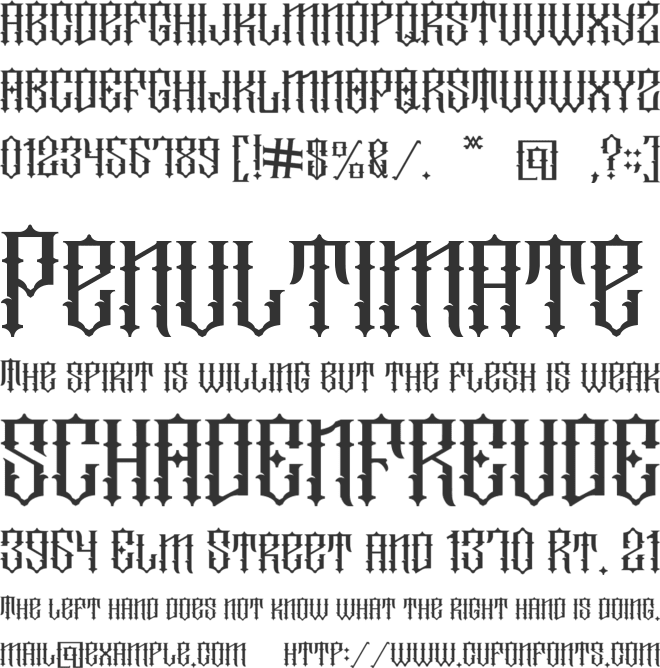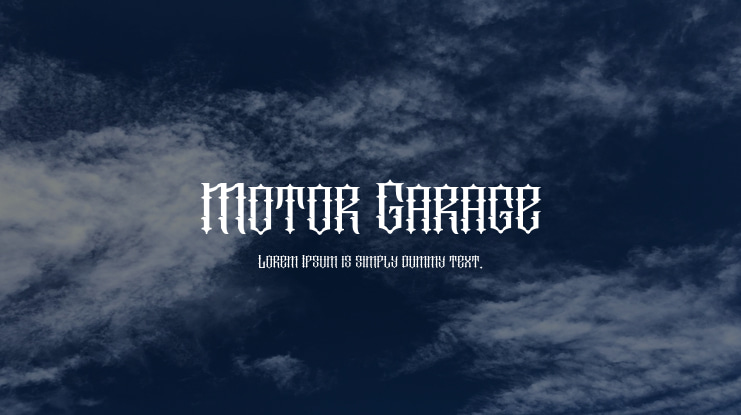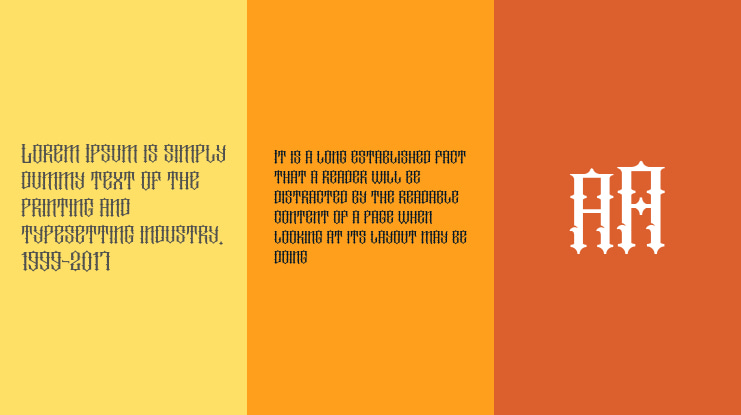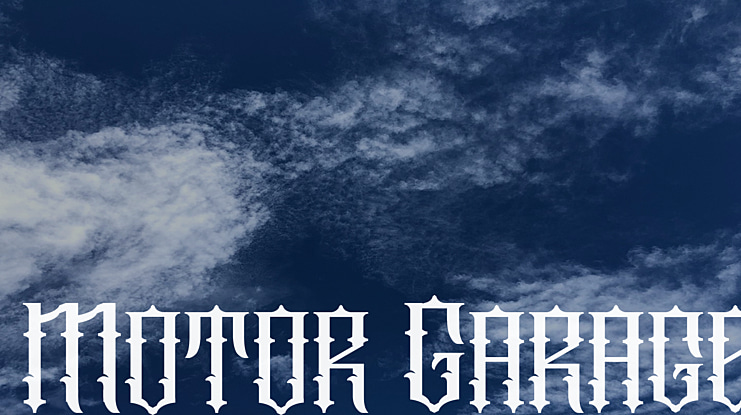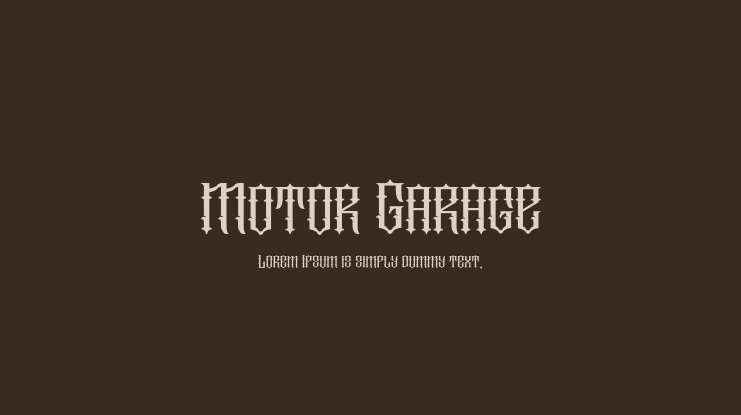
Motor Garage Font
vintage gothic design for you can use it to create some headline design, t-shirt/apparel design, or even a logotype lettering and many more. include off,off, and ttf font files, and some work previews.